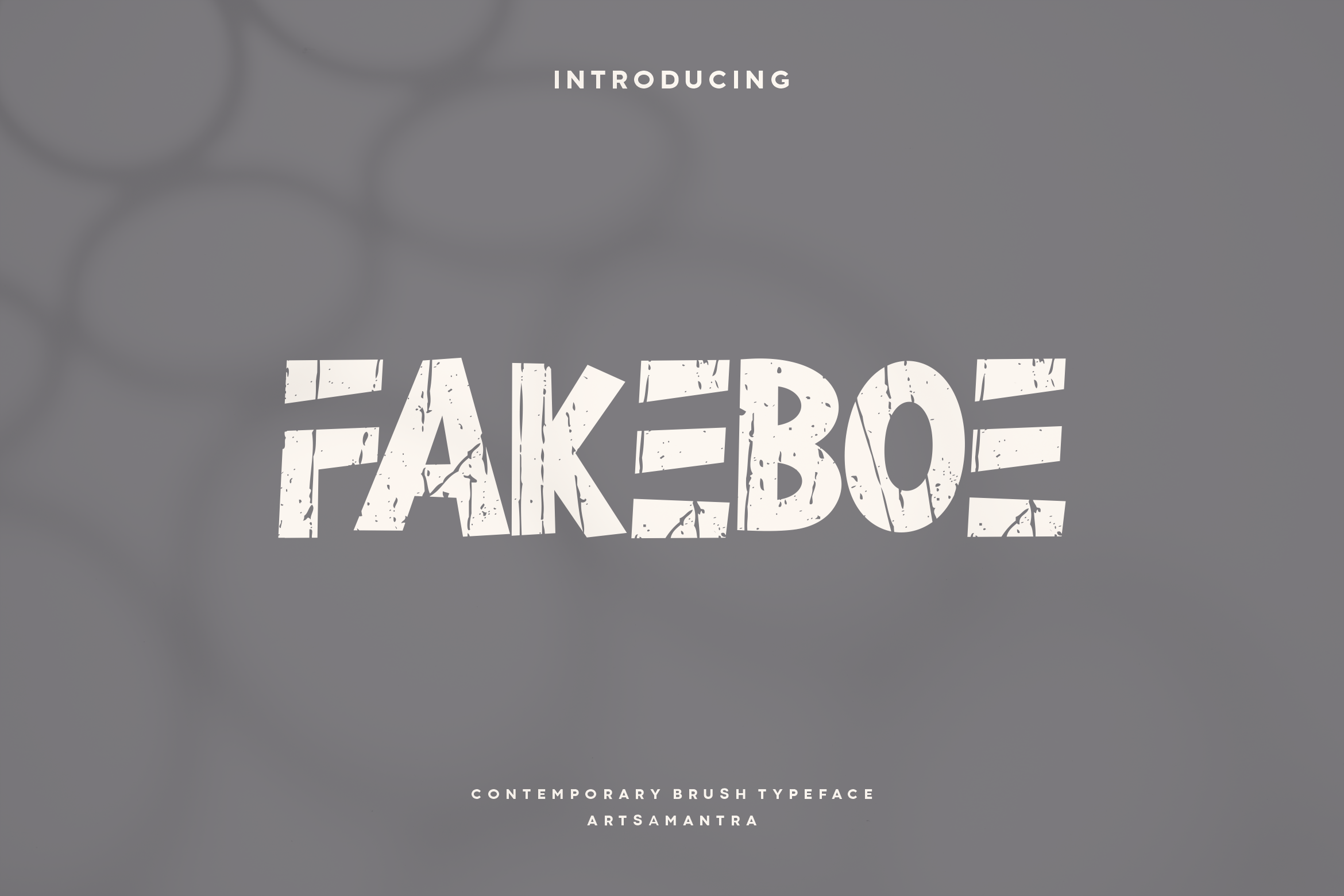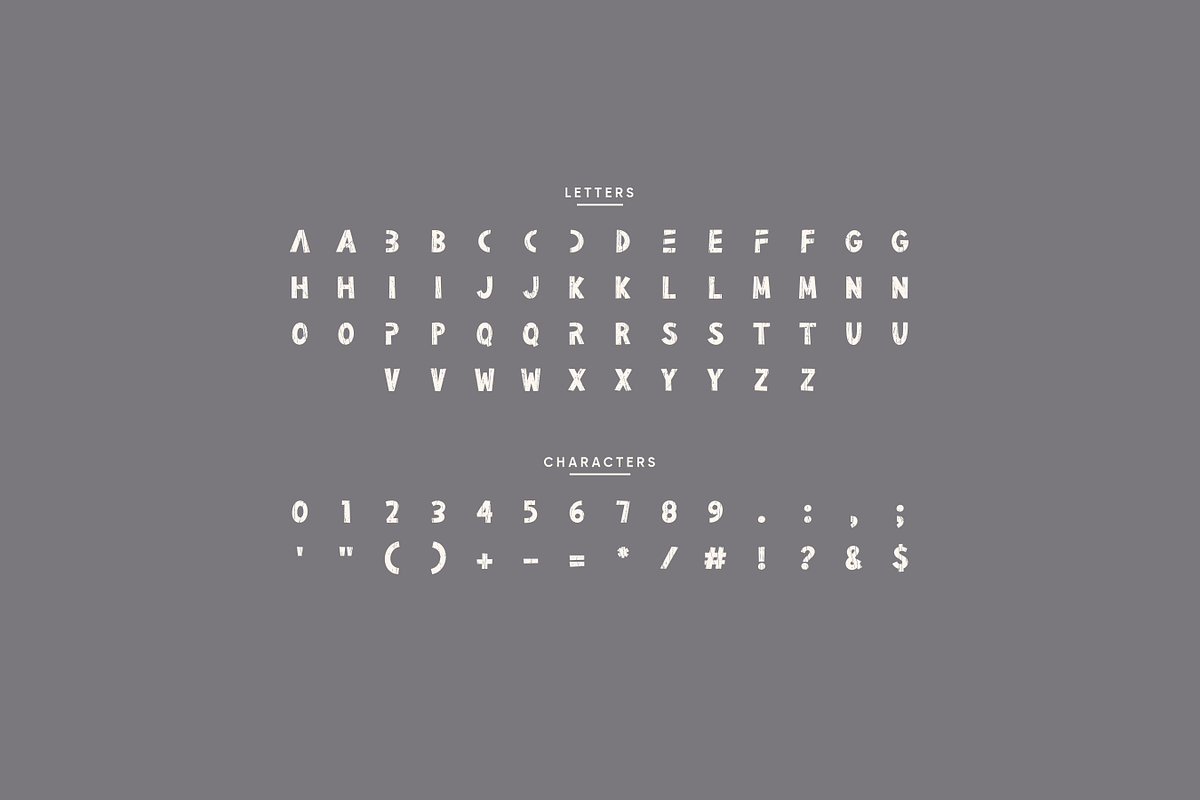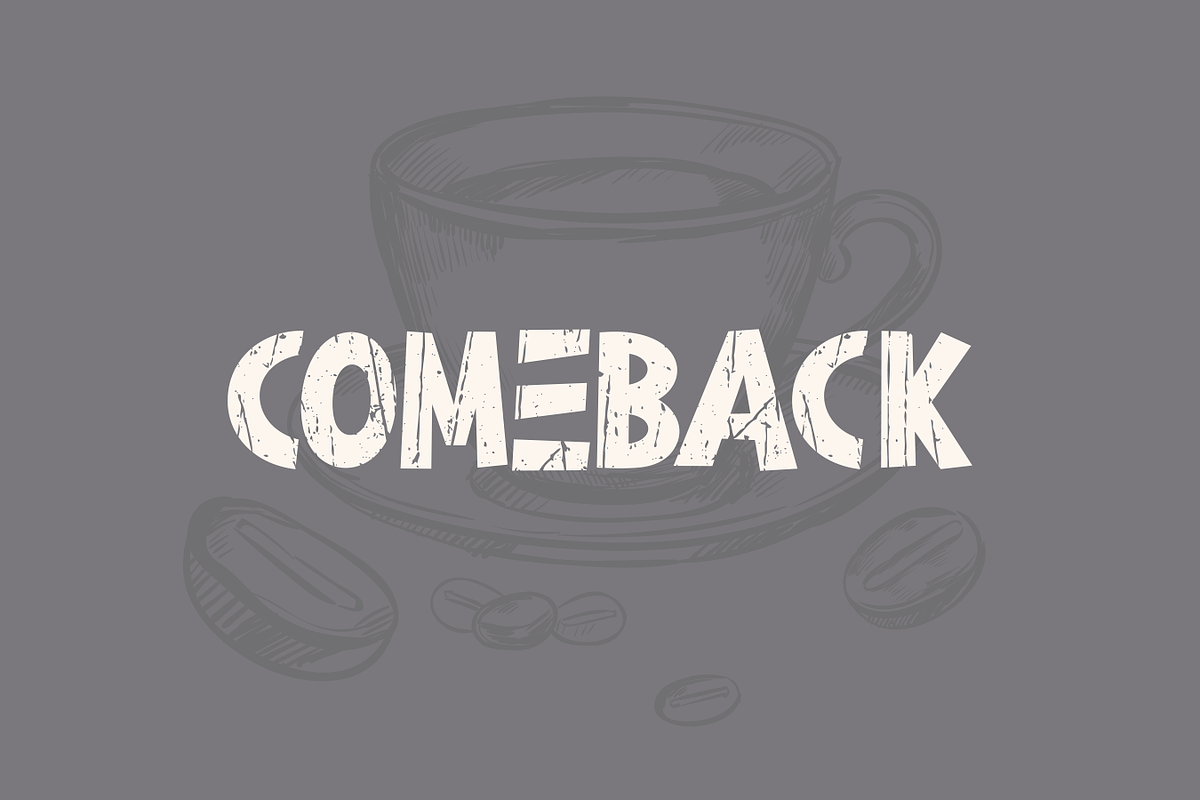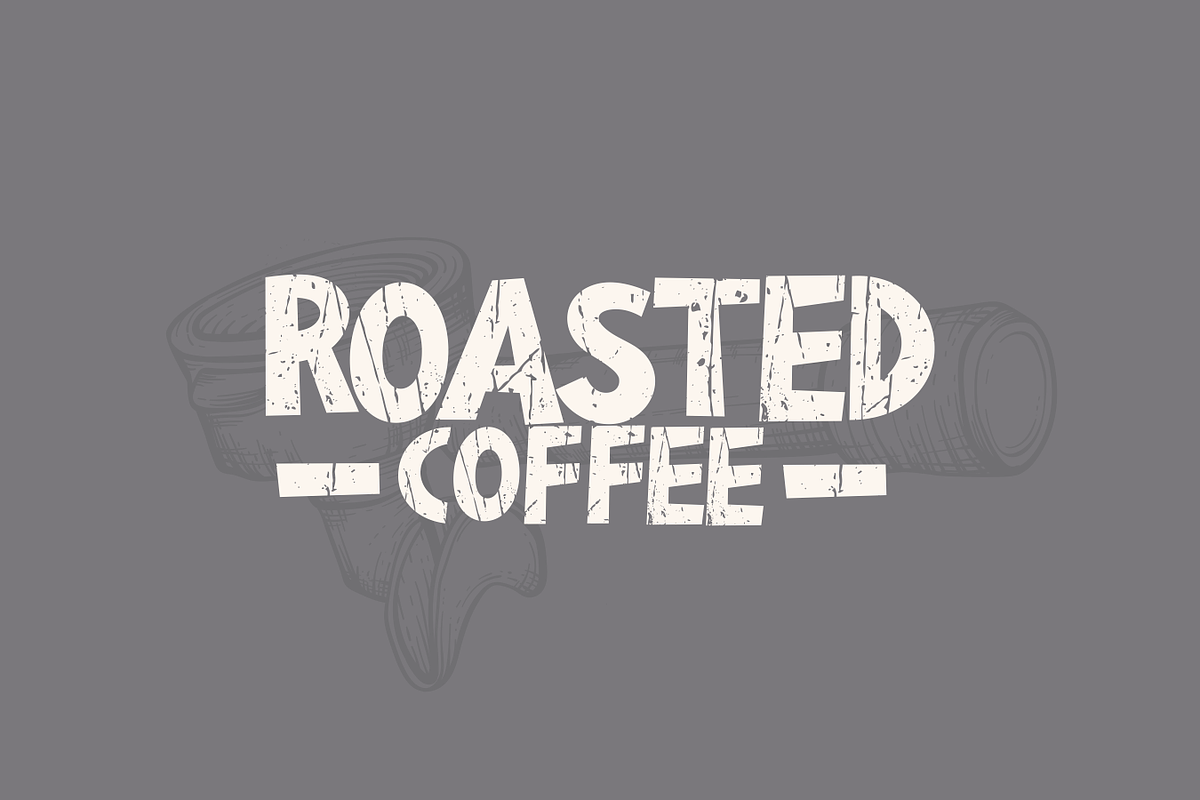
Fakeboe - Modern Display Typeface
Fakeboe is an all-caps font with a dynamic style but with a little childish accent on each letter, the unique style in lowercase makes it look even sweeter and cuter. Fakeboe has a strong style with a badass texture, this font will give a very modern, slightly unique impression with the right placement, this font is suitable for title, logo, poster, food, magazine, headline or various other type of designs.